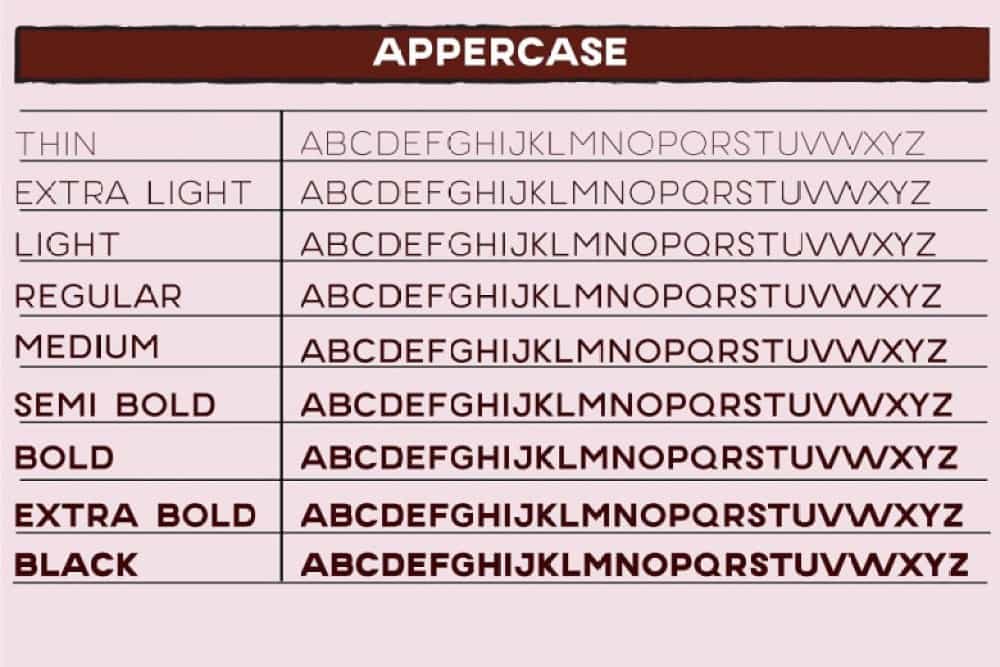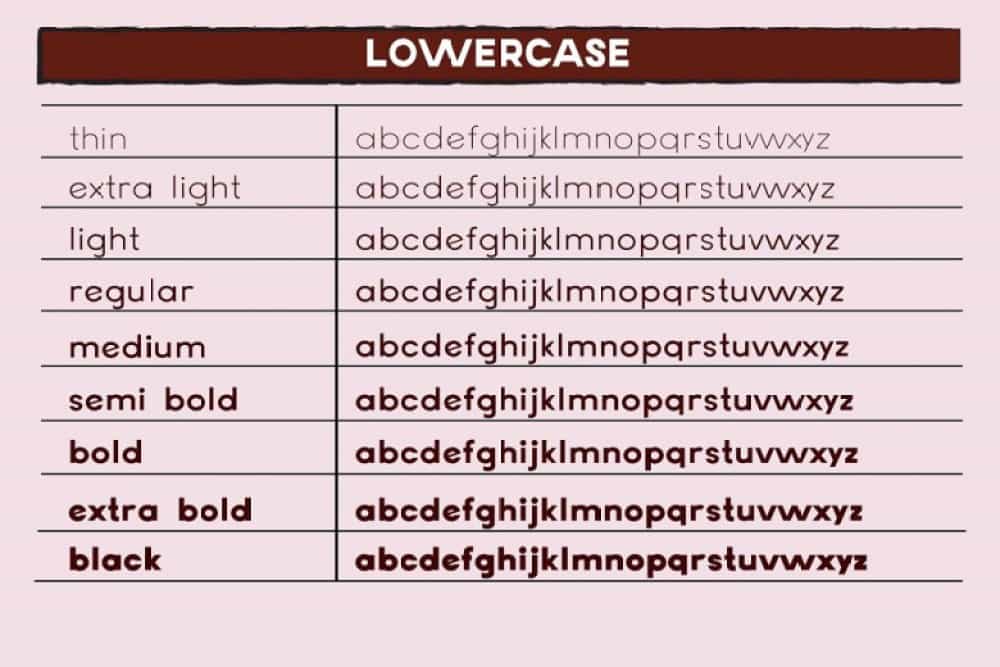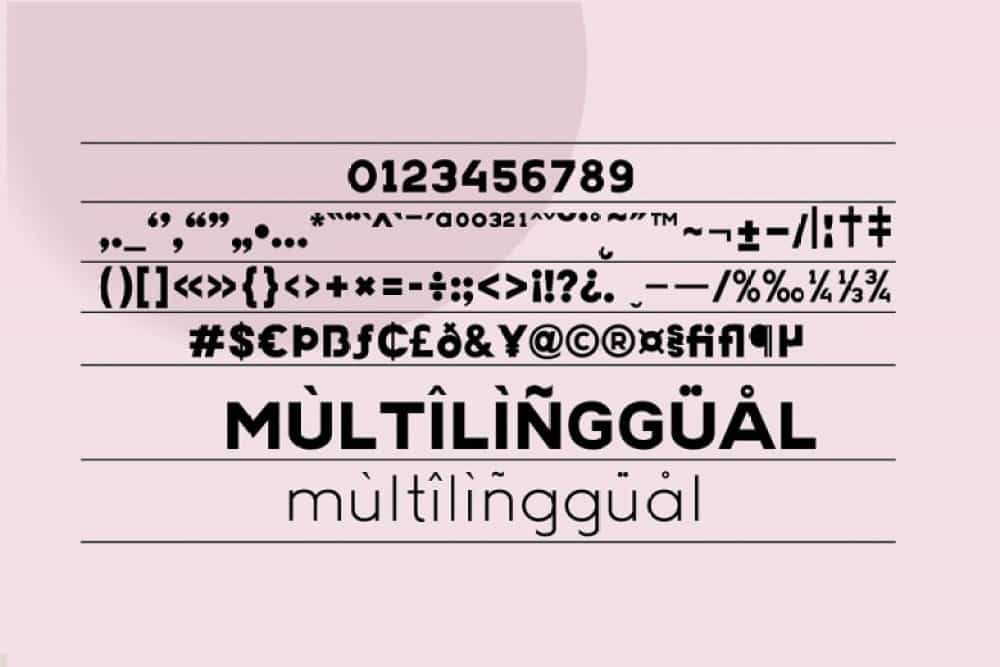
Erigo is a modern, clean and genuine sans serif font by Rezastudio. The forms of fonts that do not have serifs are more popular because of their simple and tidy appearance, it is perfect in providing space for creativity in any form of design. From the representation of the business organization to the enhancement of the look and feel of digital systems.